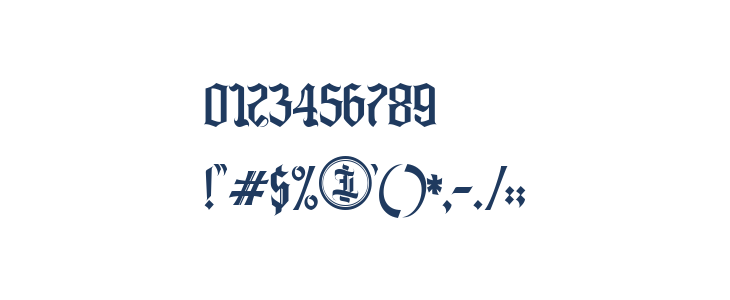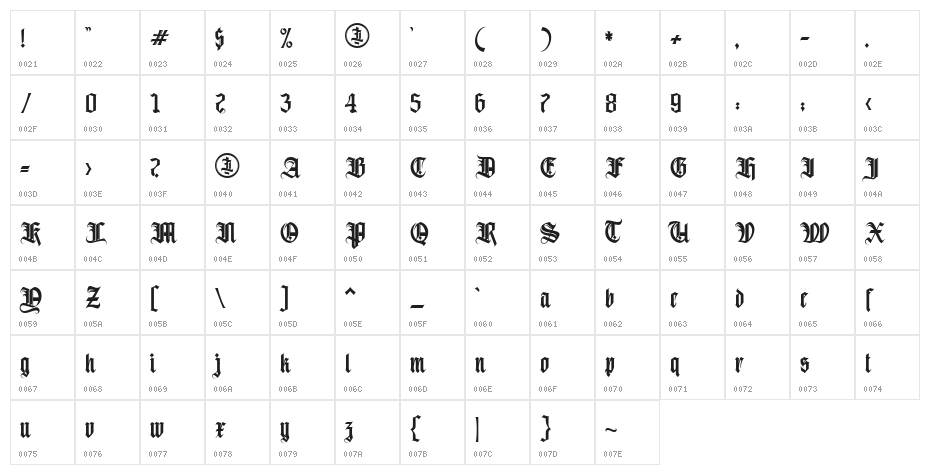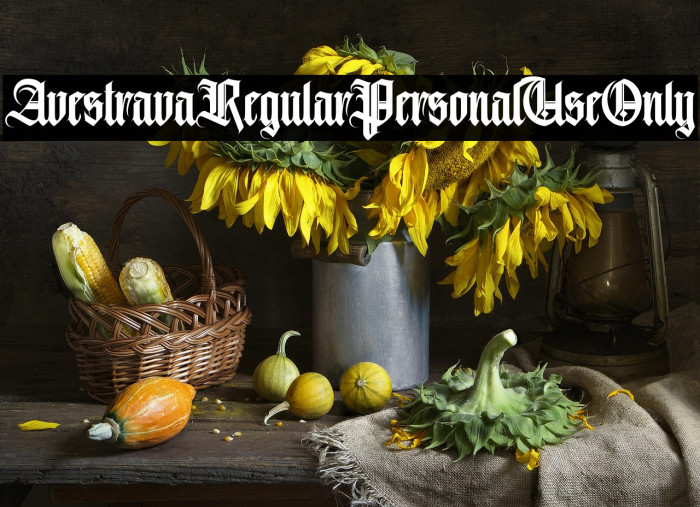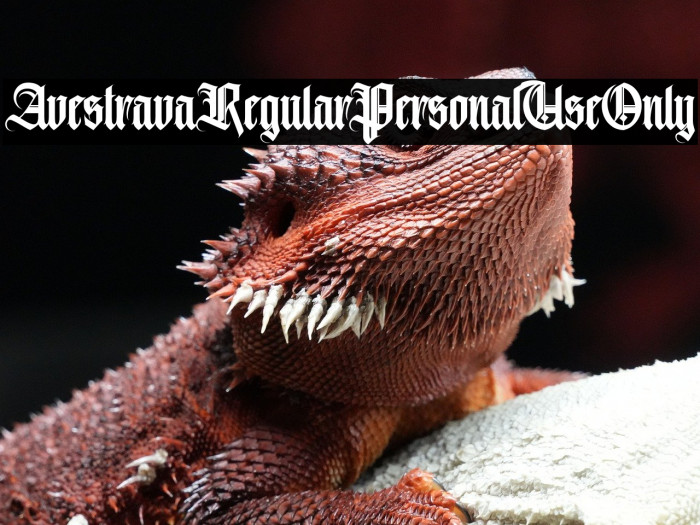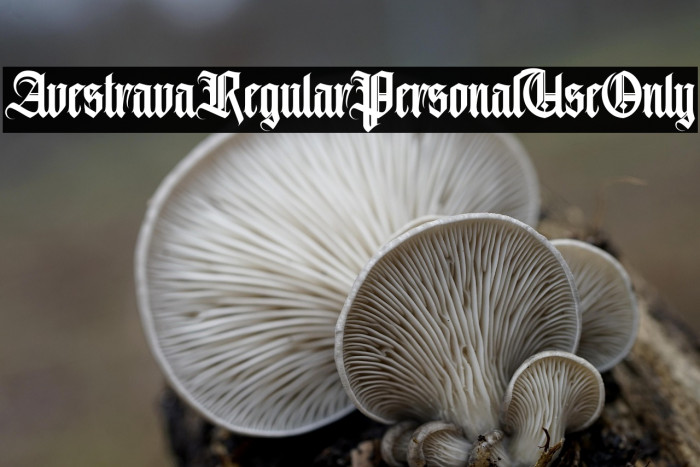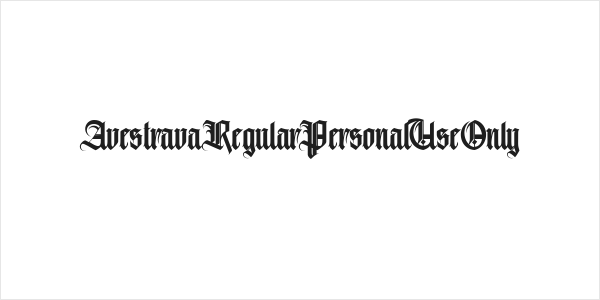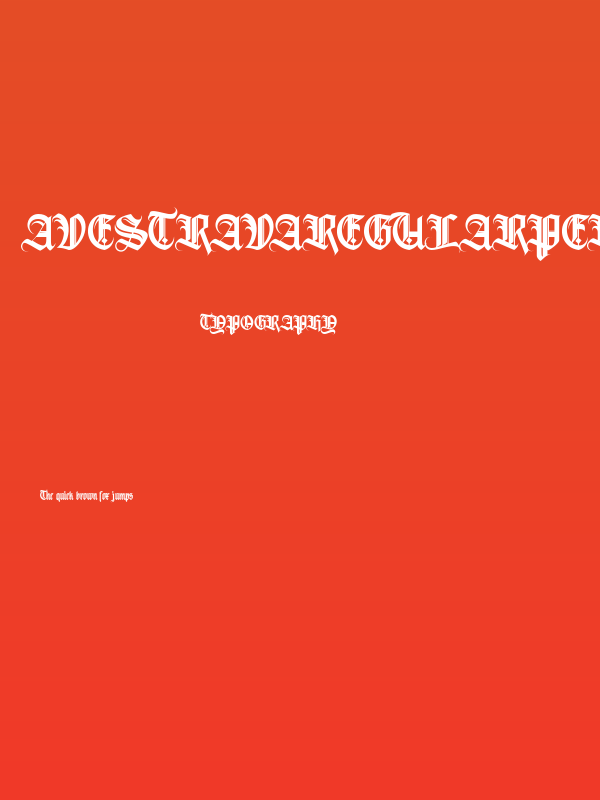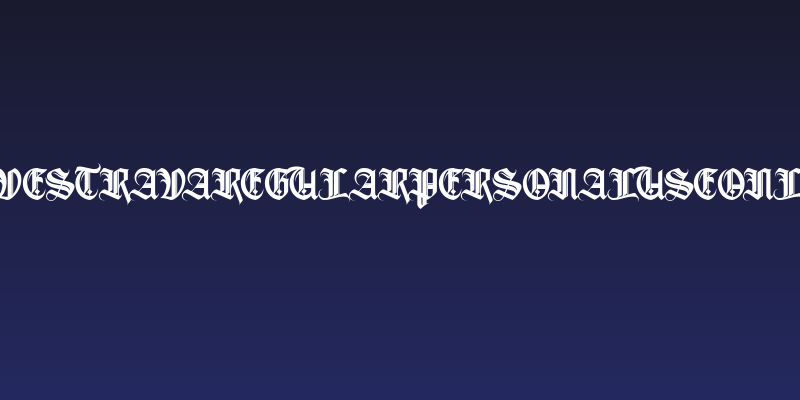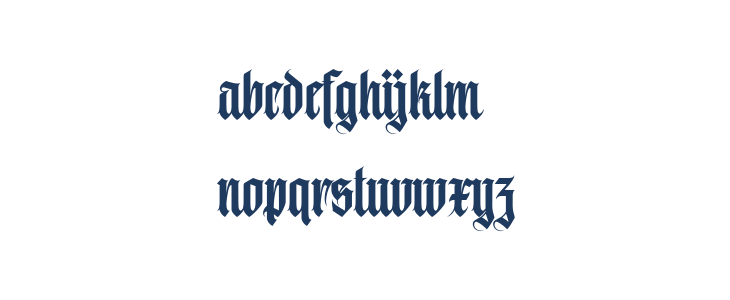
AvestravaRegularPersonalUseOnly Font
AvestravaRegularPersonalUseOnly Description
This font exudes a classic and ornate style, reminiscent of traditional Gothic script. The characters are intricately designed with elaborate flourishes and sharp, angular lines that give it a bold and authoritative presence. The uppercase letters are particularly striking, with their dramatic curves and pointed serifs. The lowercase letters maintain the same decorative style, ensuring consistency throughout the typeface. The numerals and special characters are equally detailed, adding to the overall cohesive look. This font is perfect for projects that require a touch of elegance and historical flair.